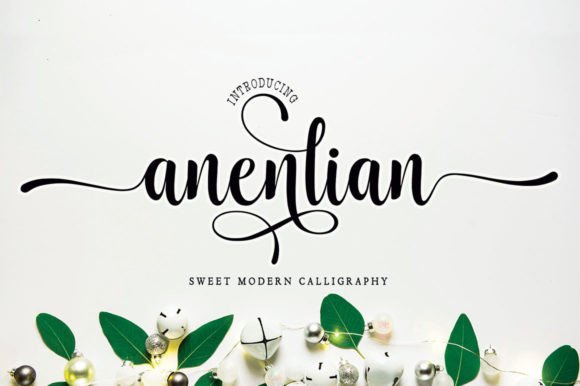
Journey into the enchanting world of Anenlian Font, a breathtaking script font brimming with elegance and charm. Its meticulously crafted characters dance across the page, inviting you to experience the magic of handwritten artistry. Each letter is a masterpiece, adorned with intricate details and delicate flourishes.
Anenlian Font is the perfect companion for your creative endeavors, whether you're crafting heartfelt greetings, designing eye-catching social media posts, or creating stunning invitations. Its versatile nature lends itself effortlessly to a wide range of projects, adding a touch of sophistication and personality to every design.
Immerse yourself in the beauty of Anenlian Font and let your imagination soar. Its graceful lines will effortlessly elevate your words, transforming them into works of art. From heartfelt love letters to whimsical fairy tales, this font possesses the power to captivate and enchant.
With Anenlian Font, you'll discover a world of endless possibilities. Its boundless charm will add a touch of magic to your designs, leaving a lasting impression on your audience. Embrace the beauty of handwritten artistry and let Anenlian Font guide you towards creative greatness.